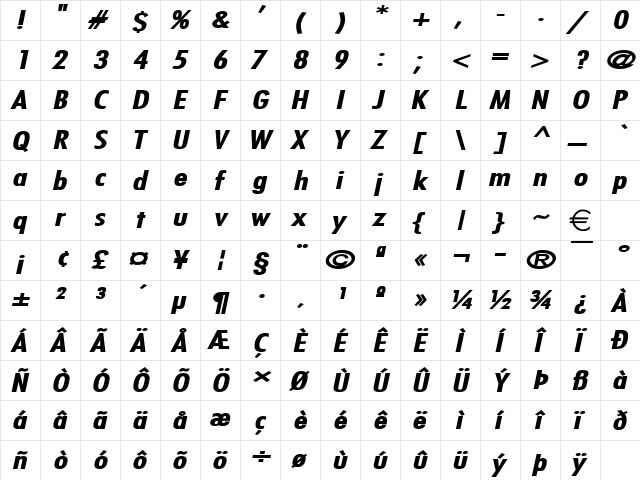
FujiExtended BoldItalic Font Preview
Design Context for FujiExtended Typeface
FujiExtended offers clean, dependable letterforms without strong stylistic allegiance, making it a practical choice for designers who need flexibility. The slanted form adds forward momentum and visual energy. The heavy weight commands attention and anchors typographic hierarchies.
Pro Tip: Try FujiExtended for annotation and caption copy alongside an upright companion — the contrast in angle creates a dynamic but ordered typographic system.